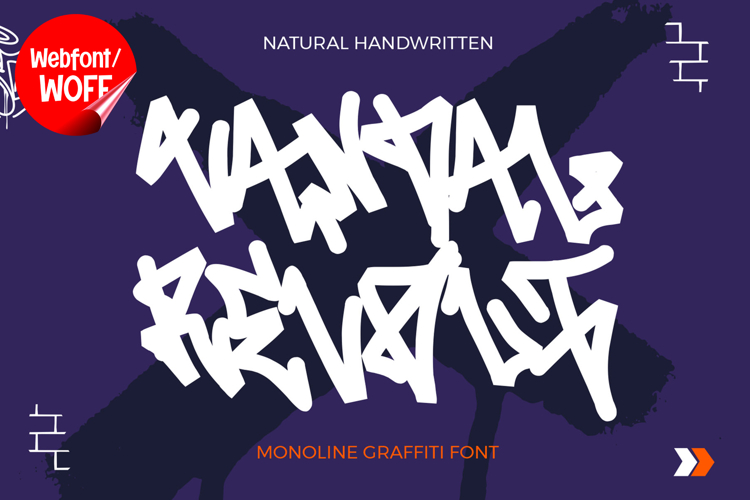
Vandal Revolt | Monoline Graffiti Tags Webfont
Vandal Revolt is a monoline graffiti tags webfont designed to bring authentic street tagging style into modern website design. Inspired by fast handstyle writing and urban graffiti culture, this font features smooth single-line strokes combined with expressive movement. It is an excellent choice for projects that require a clean yet edgy graffiti look with strong personality.
Vandal Revolt includes a complete set of uppercase characters designed with monoline graffiti tag style. The letterforms have a natural flow and consistent stroke weight, creating a smooth and balanced appearance while maintaining the expressive feel of hand-drawn writing. These characteristics make it ideal for headlines, banners, hero sections, and featured content where a stylish urban presence is needed.
In addition to letters, the font includes numbers and punctuation, allowing flexible usage across various parts of a website. It works well for branding elements, promotional text, event announcements, navigation highlights, and creative layouts. Each character maintains a consistent graffiti tag style, ensuring a cohesive and unified visual identity throughout the design.
With multilingual support, Vandal Revolt includes a wide range of accented characters, making it suitable for international websites and global audiences. This allows content to be displayed clearly across different languages while preserving the clean and expressive graffiti aesthetic.
The monoline graffiti tag style of Vandal Revolt makes it especially suitable for streetwear brands, music platforms, creative portfolios, lifestyle blogs, and urban-themed websites. Its smooth and fluid design adds personality and authenticity, helping websites stand out in visually competitive environments. The handwritten flow enhances the sense of motion and individuality.
Despite its expressive and handwritten appearance, Vandal Revolt is designed with readability in mind. The spacing and proportions are carefully balanced to ensure clarity, particularly in display sizes. This makes it effective for impactful headings and short content elements where both style and usability are important.
Vandal Revolt is a webfont that combines graffiti tagging aesthetics with clean monoline structure and modern digital performance. Its smooth strokes, natural flow, and urban character create a distinctive typographic presence that enhances website design. For projects that require a creative, authentic, and visually engaging graffiti tag font, Vandal Revolt offers a strong and versatile solution.